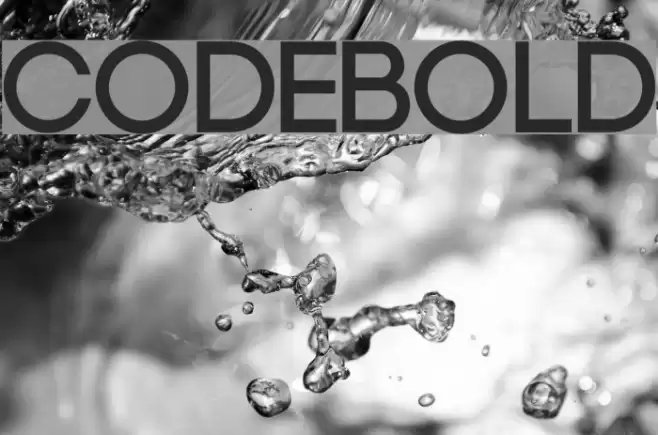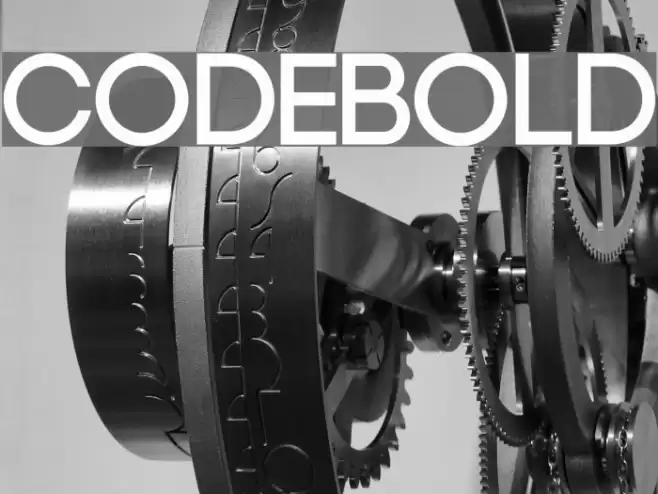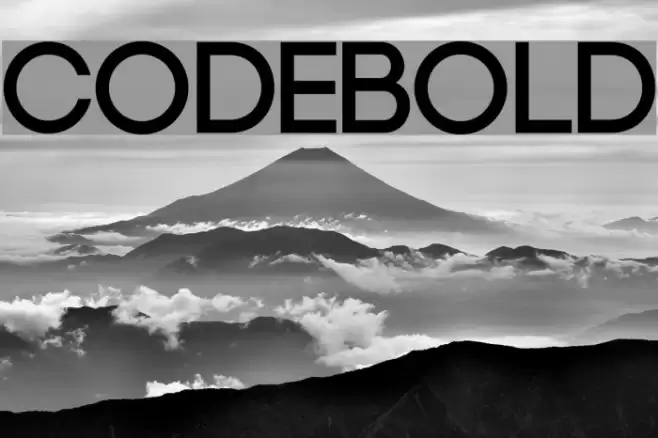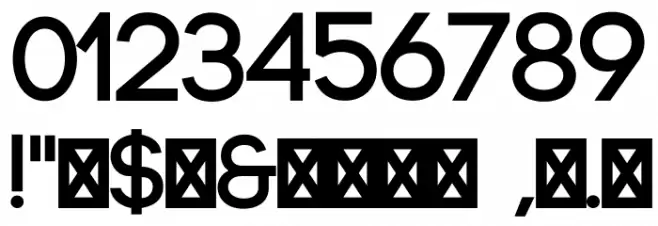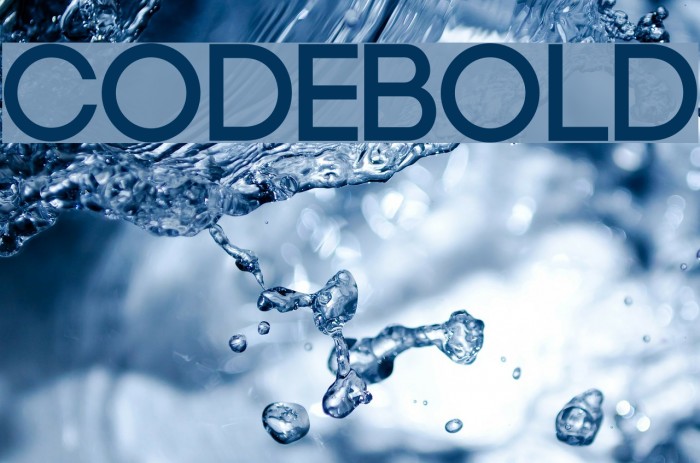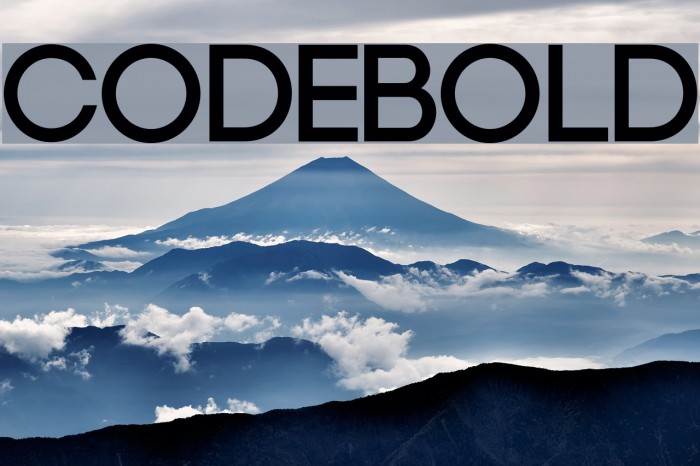
Code-Bold Font
Code-Bold Description
This font exhibits a bold and modern sans-serif style, characterized by clean lines and a geometric structure. The uppercase letters are uniform in height, with a consistent stroke width that conveys strength and clarity. The numerals are equally bold, maintaining the same geometric precision. Special characters are designed to match the overall aesthetic, ensuring visual harmony across all elements. The font's simplicity and boldness make it highly legible, suitable for various design applications where clarity and impact are essential.
A bold, modern sans-serif font with geometric precision and strong legibility from Sans Serif fonts.
- Proposed Projects: Ideal for branding, headlines, posters, and digital media where a strong, modern presence is required.